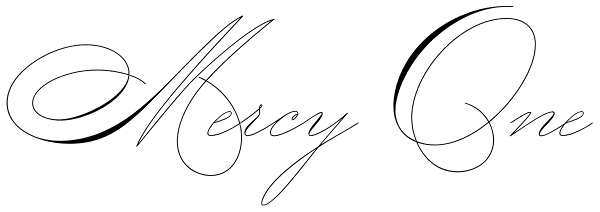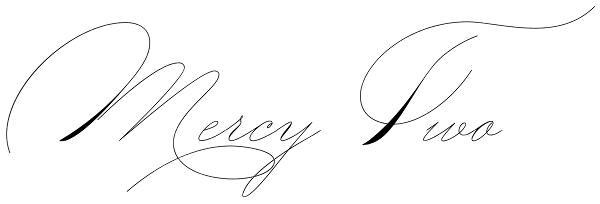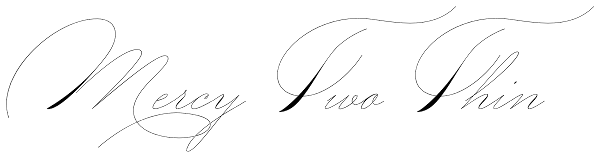
Mercy
This Ladies' Hand Style font is very (somewhat) similar to ornamental penmanship, but uses slightly longer ascenders and descenders and a modest shading. Originally the Ladies' Hand had less flourishings, which was ideal for writing long letters...
Mercy One
Mercy One Thin
Mercy Two
Mercy Two Thin
Mercy X
Mercy X Thin